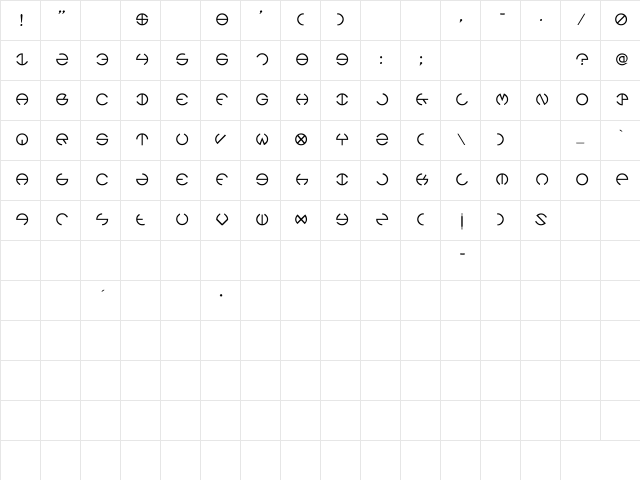
Rebecca Regular
Design Context for Rebecca
Rebecca is a composed and adaptable typeface that performs quietly and consistently across a wide range of design contexts.